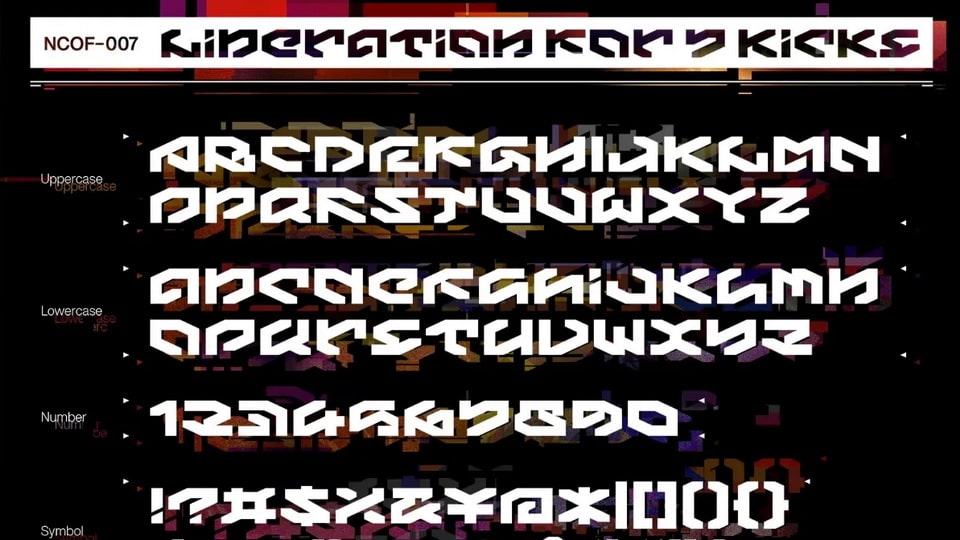
Feb 4, 2025DisplayLiberation For 7 Kicks Font Liberation For 7 Kicks is a crisp display typeface suitable for sci-fi logos and titles. It owes its futuristic vibe to angular, top-heavy block letters that are perfect for impact messages. Font DetailsDesigned by: NC EmpireWebsiteLicense: Free for commercial use, OFL Download Liberation For 7 Kicks FontFile size: 6.51 KBCreated: February 16, 2025Updated: February 16, 2025 Download Explore similar fonts Netech Font Board of Directors Font Ortech Font Grozex Font Grid Font Torq Font # Block# Bold# Futuristic# Geometric# Square# Strong# Technology More fonts by NC Empirehrdtkn_ver1.20 FontKounstruct FontGeneric Techno FontAncestral Recall FontOperation FontTekex FontBad Fennec Font